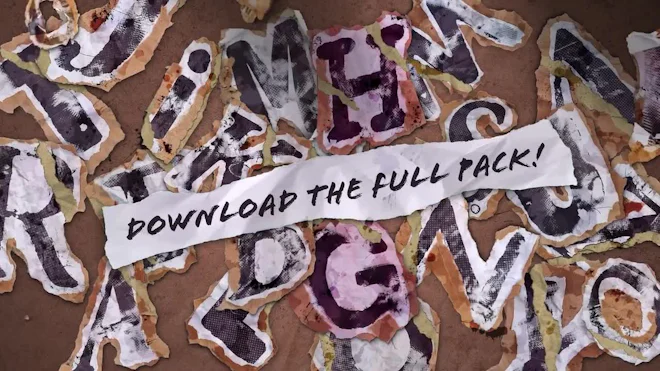
Pack Of 26 extreme grunge paper typefaces on alpha channel in a grunge torn creased up paper and card style where each letter folds out in to place with worn aged effects and paper tears.